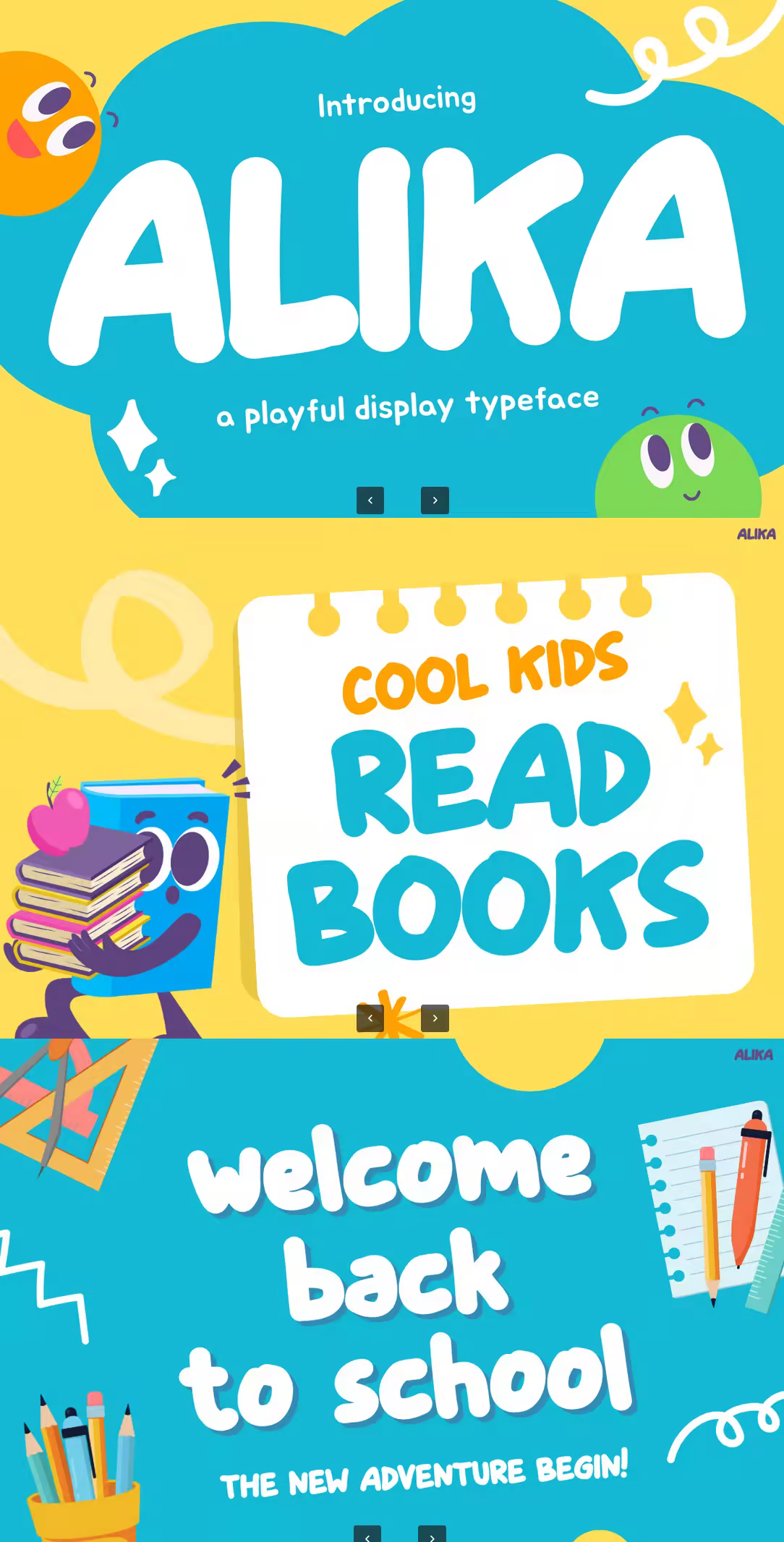
ALIKA – Bold Playful Kids Display Font
ALIKA is a playful kids display typeface designed for child-focused branding and joyful visual storytelling, featuring soft curves, rounded terminals, and a lively, bouncy baseline that instantly feels friendly and expressive. Its bold yet approachable letterforms create a cheerful tone that works naturally in kids books, educational materials, and colorful digital layouts.
The vibe is playful, bold, and friendly, making it highly suitable for markets such as kids publishing, school campaigns, learning apps, and family-oriented brands. Structurally, ALIKA uses rounded, low-contrast, geometric shapes, ensuring high readability while maintaining strong character. It performs well across branding, social media graphics, packaging, posters, and educational content, where warmth and clarity matter.
ALIKA helps designers create kid-friendly designs that feel fun, safe, and visually engaging. Whether used in kids books, school posters, learning apps, or playful packaging, this typeface supports attention-grabbing headlines while maintaining an approachable tone parents and educators trust.
Key Features
Playful Rounded Letterforms Soft curves and smooth edges create a friendly, welcoming appearance suitable for children-focused design.
Bold Display Presence Strong weight and clear shapes ensure headlines stand out across posters, covers, and social media visuals.
*High Readability for Young Audiences Simple proportions and open counters improve clarity for early readers and educational use.
Versatile Creative Use Works seamlessly for kids books, school events, branding, packaging, app UI, and promotional graphics.